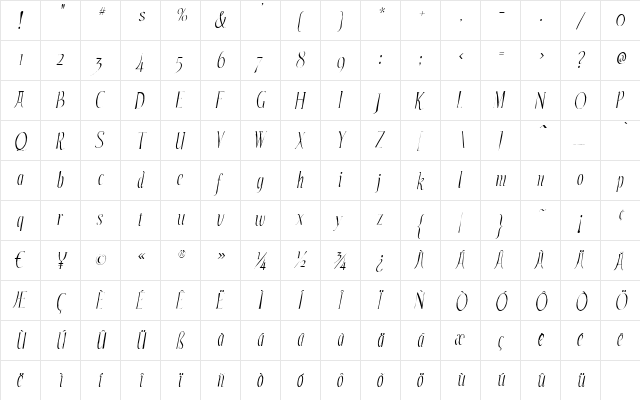
Echelon Gaunt Italic
| Designer | Ray Larabie ::: Larabie Fonts |
Design Context for Echelon Gaunt Typeface
Echelon Gaunt offers clean, dependable letterforms without strong stylistic allegiance, making it a practical choice for designers who need flexibility. Its italic angle brings a sense of urgency and motion to the letterforms.